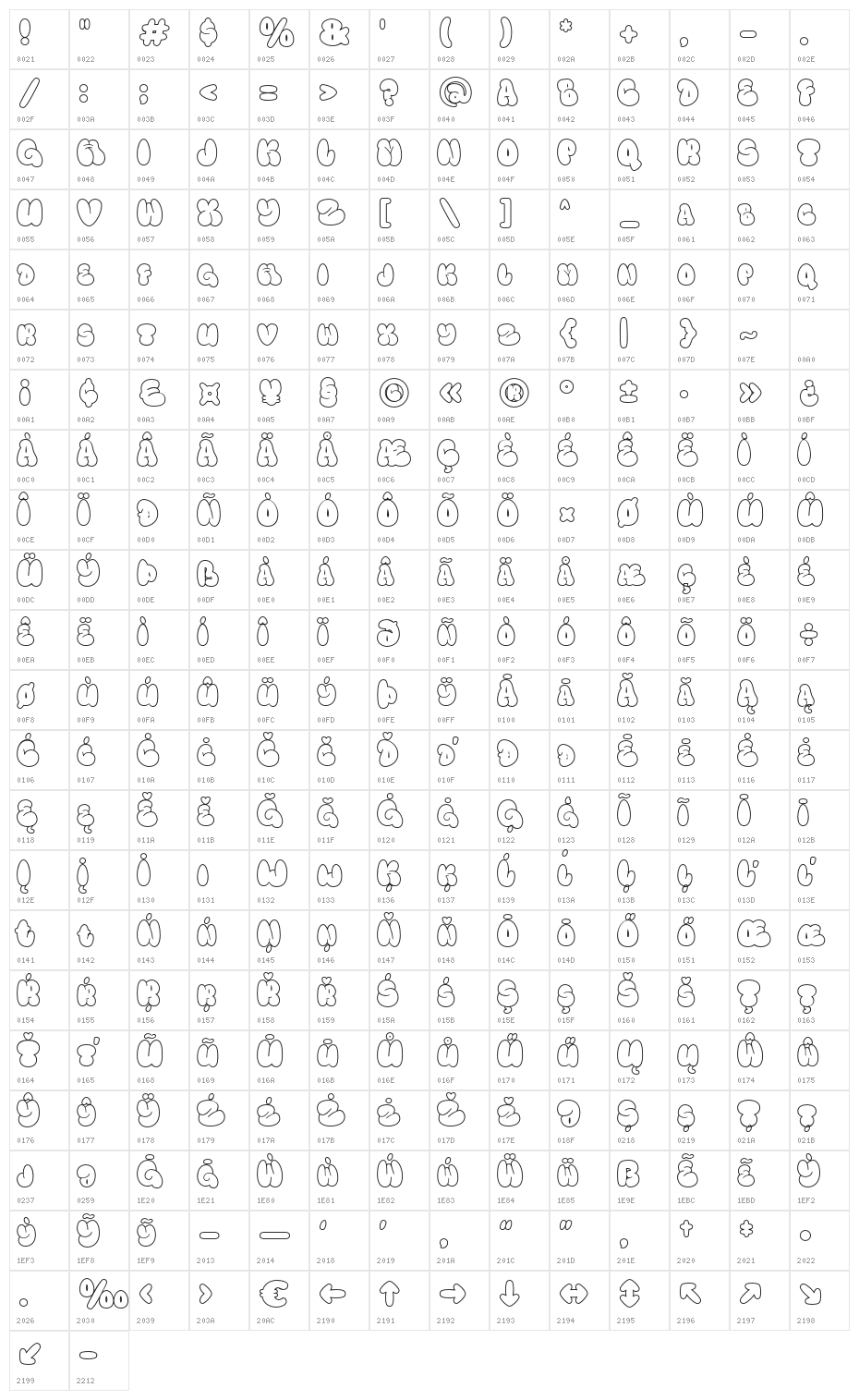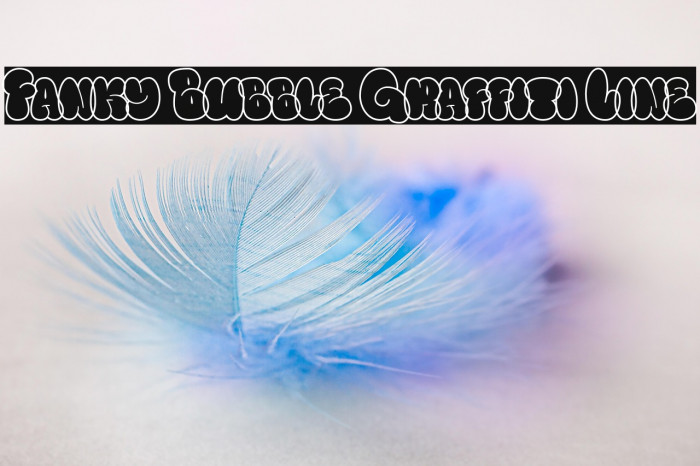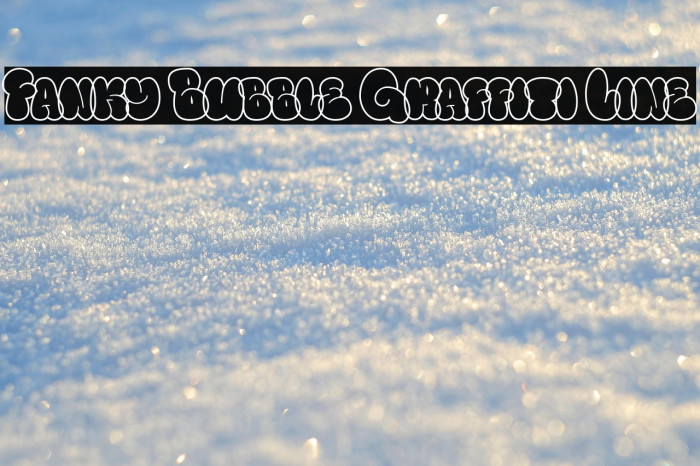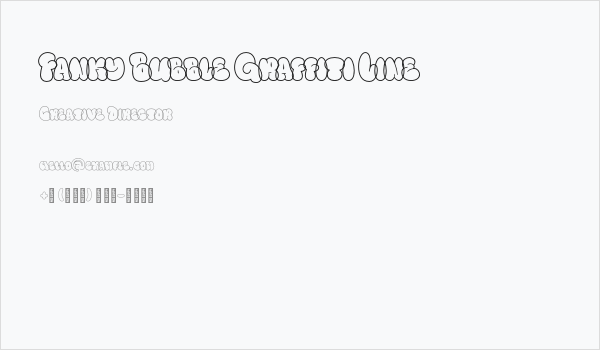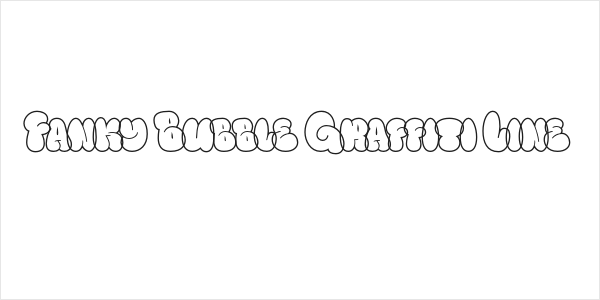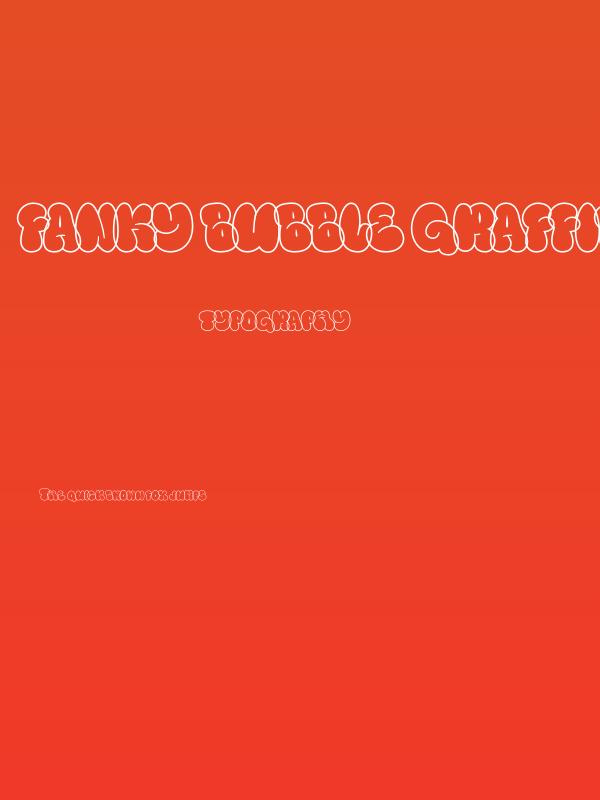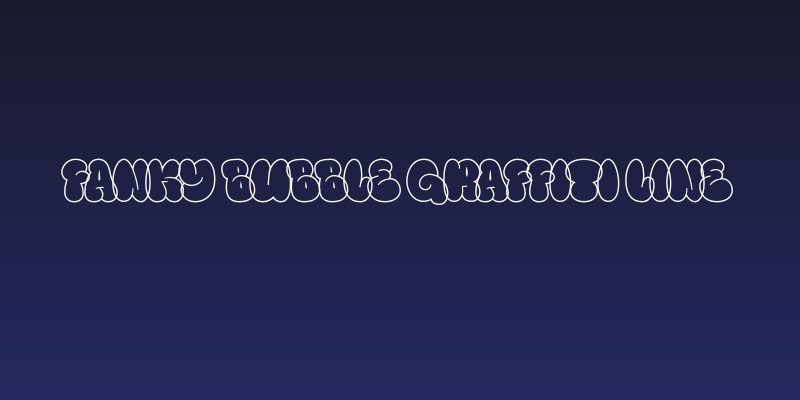
Fanky Bubble Graffiti Line Font
Fanky Bubble Graffiti Line Description
This playful and bold font features a bubble-like appearance, reminiscent of graffiti art. The characters are rounded and inflated, giving a sense of fun and creativity. The uppercase and lowercase letters maintain a consistent style, with a smooth and flowing outline that enhances the font's playful nature. The absence of certain special characters suggests a focus on artistic expression rather than comprehensive utility. This font is ideal for projects that require a youthful and energetic vibe, such as children's book covers, party invitations, or street art-inspired designs.
| Overall Style | Playful, Graffiti |
| Proposed Projects | Ideal for children's books, party invitations, and street art designs. |